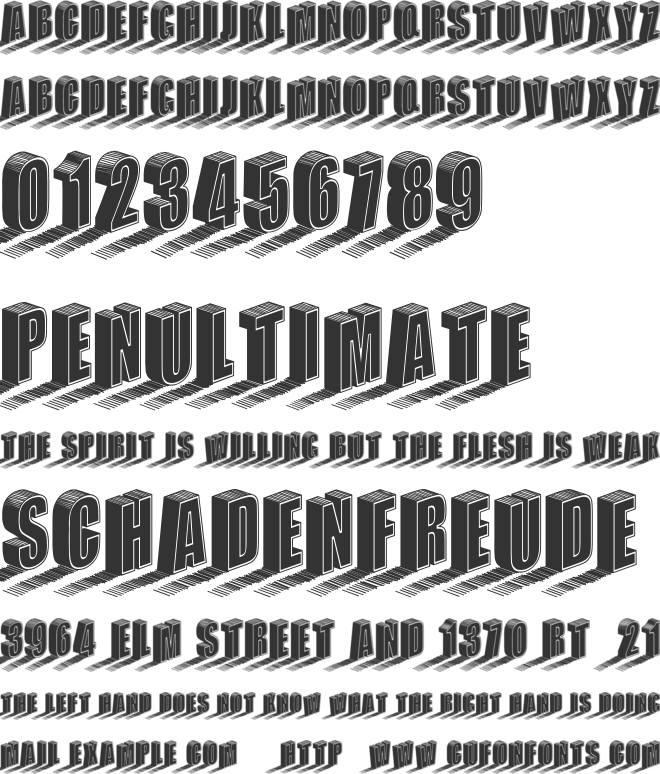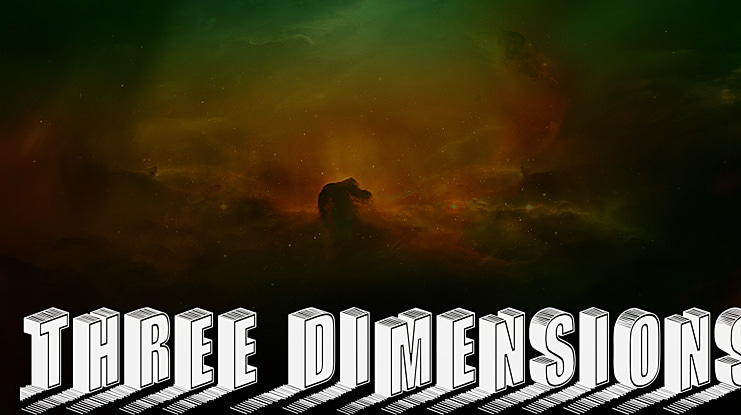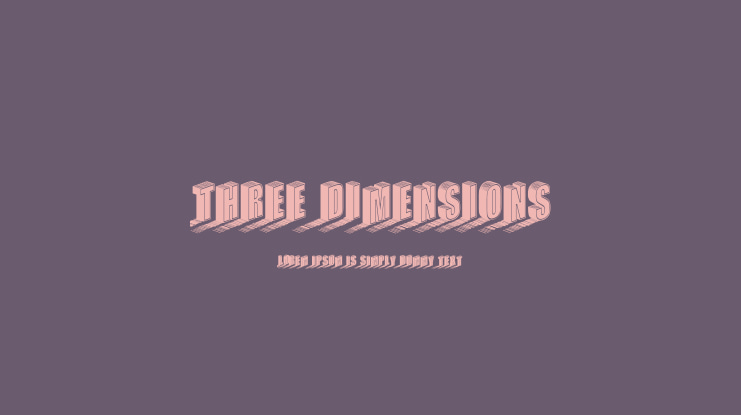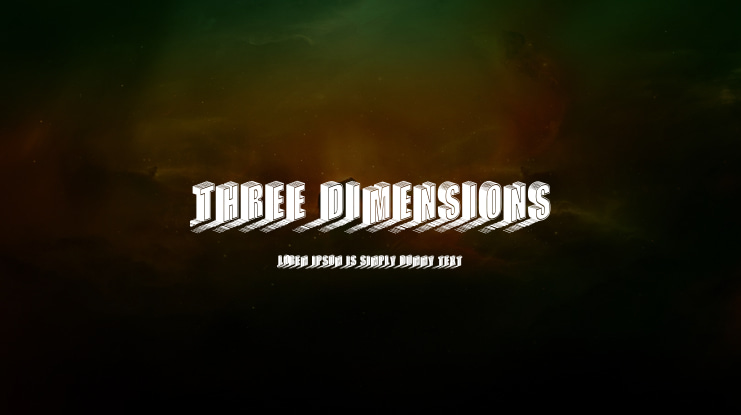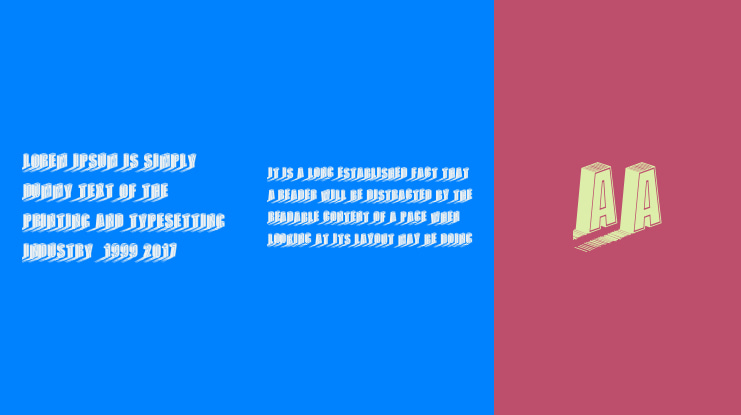
Three Dimensions Font Family
Vladimir Nikolic
Based on "Egyptian" from Hermann Esser's book "Draughtsman's Alphabets" (1877). "Three Dimensions" comes in Regular, Hollow and Stroked variant. It is 100% free for personal and commercial use! Enjoy!